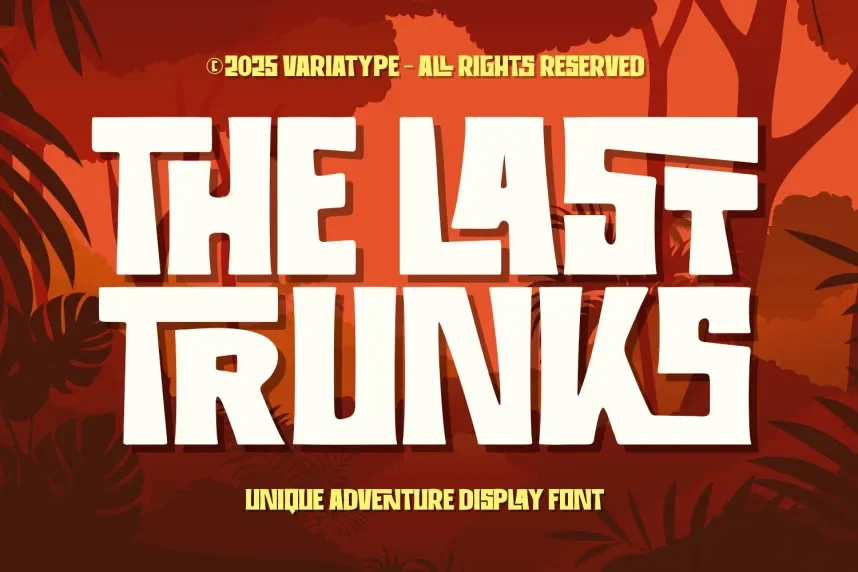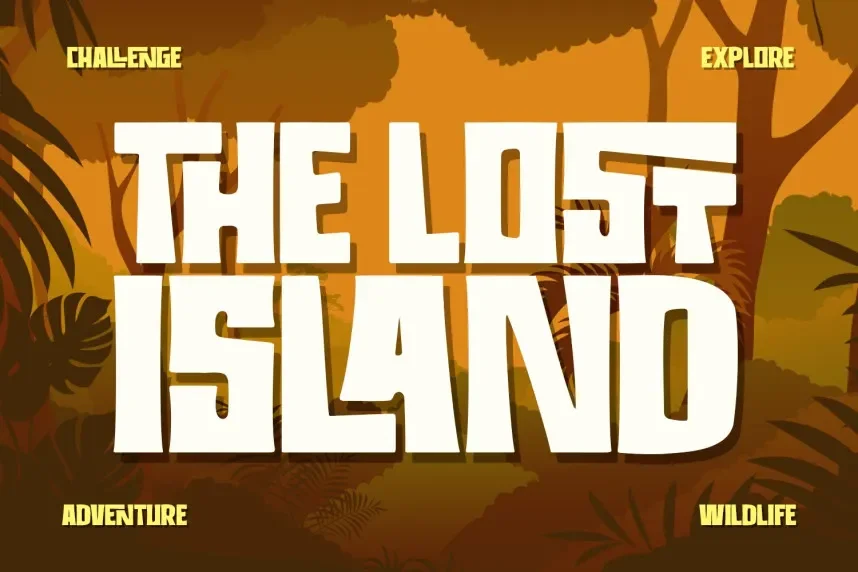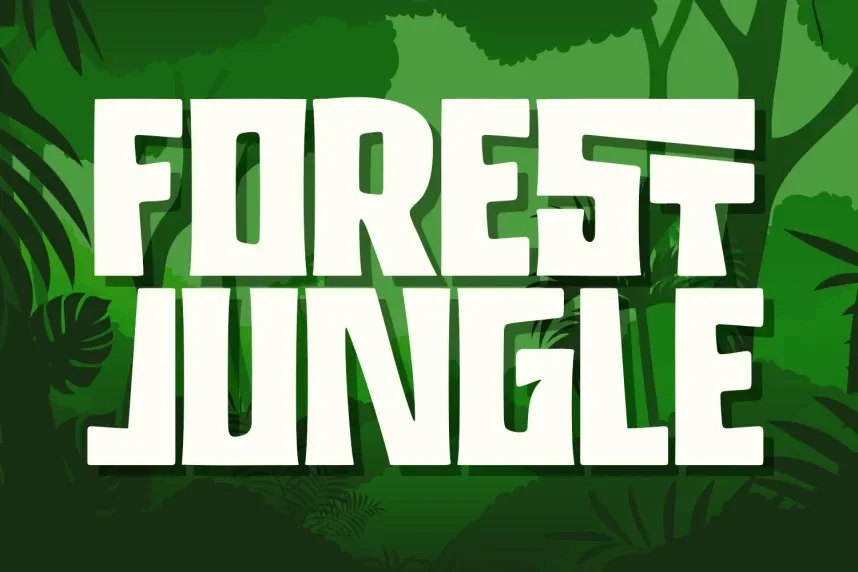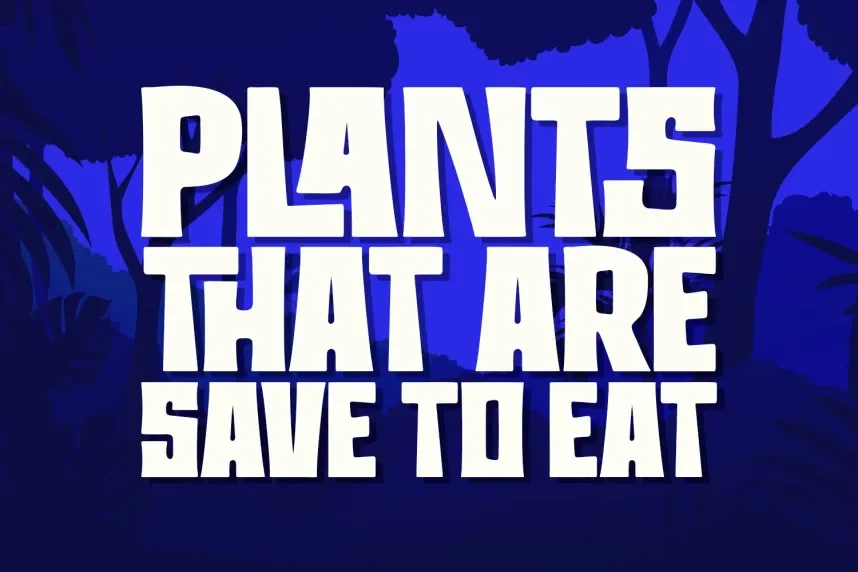
The Last Trunks Font is a unique display typeface with an urban, distressed design. Its rough, edgy style makes it ideal for projects that need a bold, impactful appearance, such as album covers, posters, and streetwear branding.
Best used for logo design, promotional posters, and album artwork, The Last Trunks Font pairs well with clean, minimalistic fonts to balance its bold design. Available in TTF and OTF formats, it includes a commercial-use license. Always check the license for commercial use.